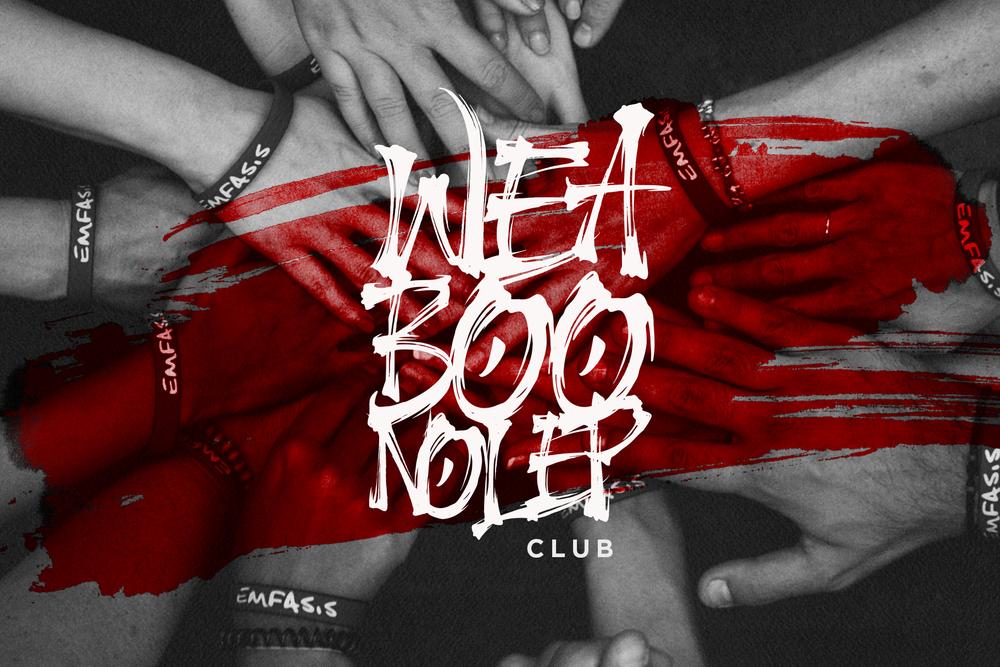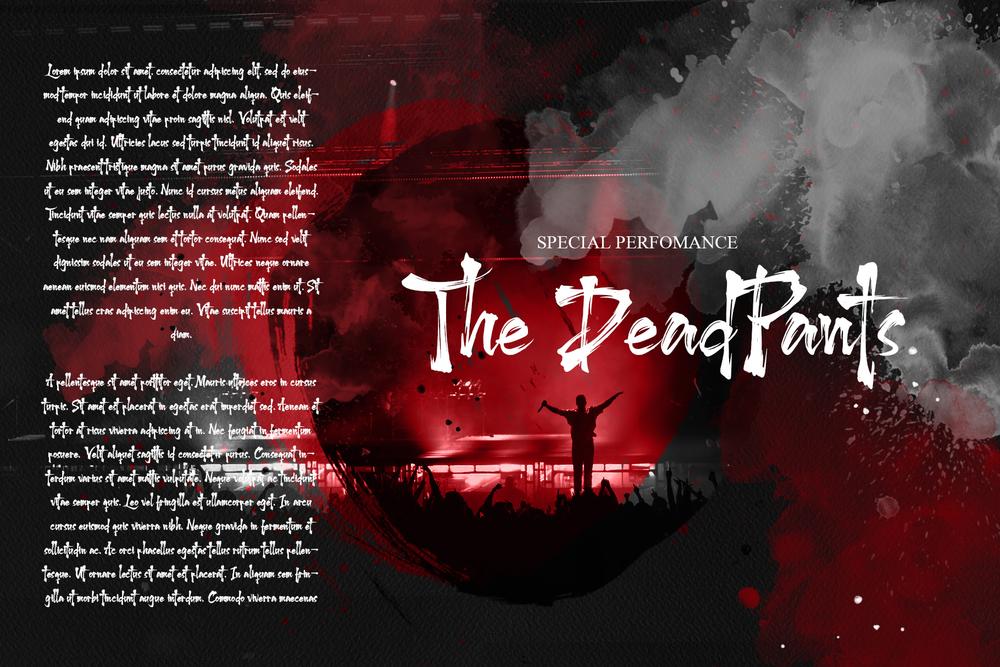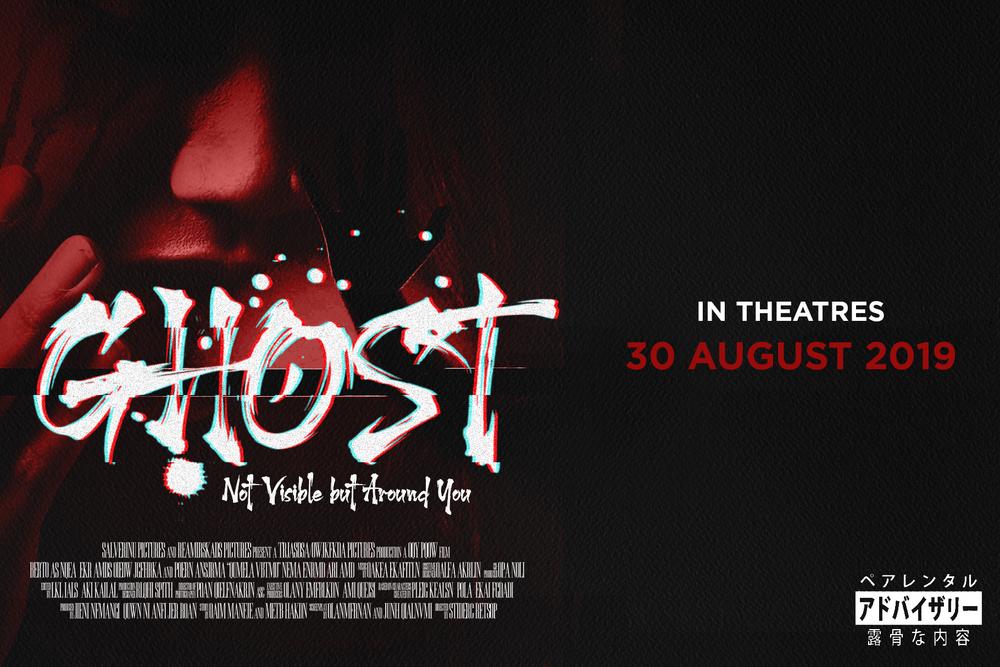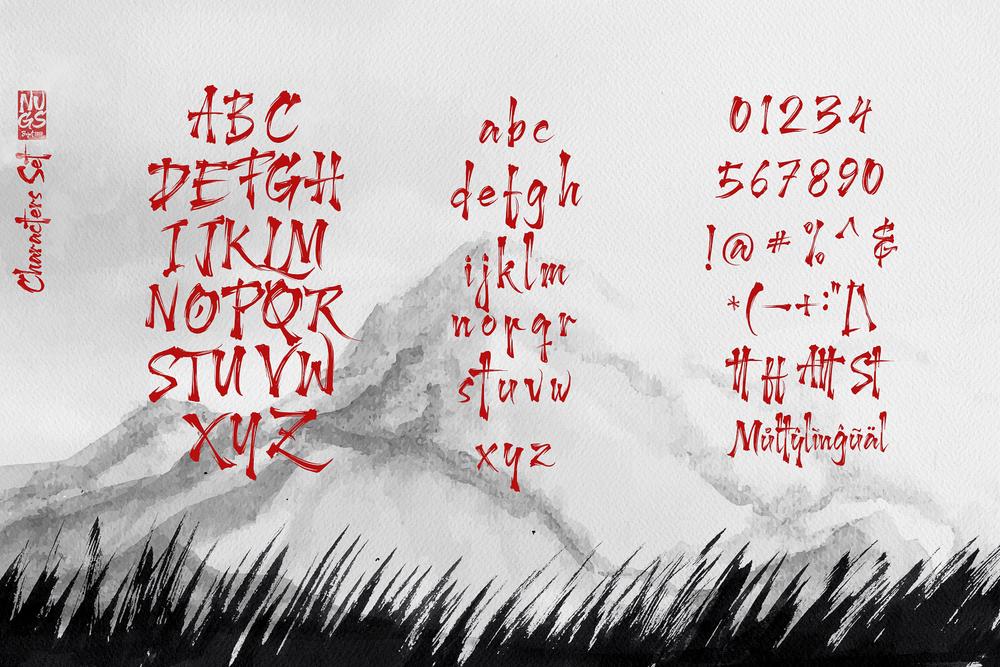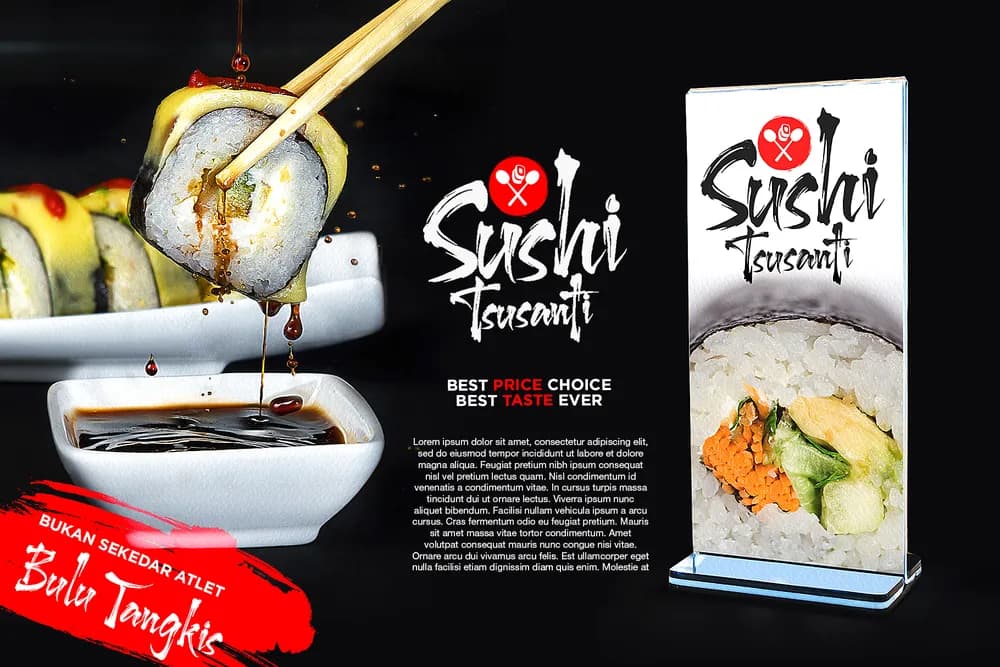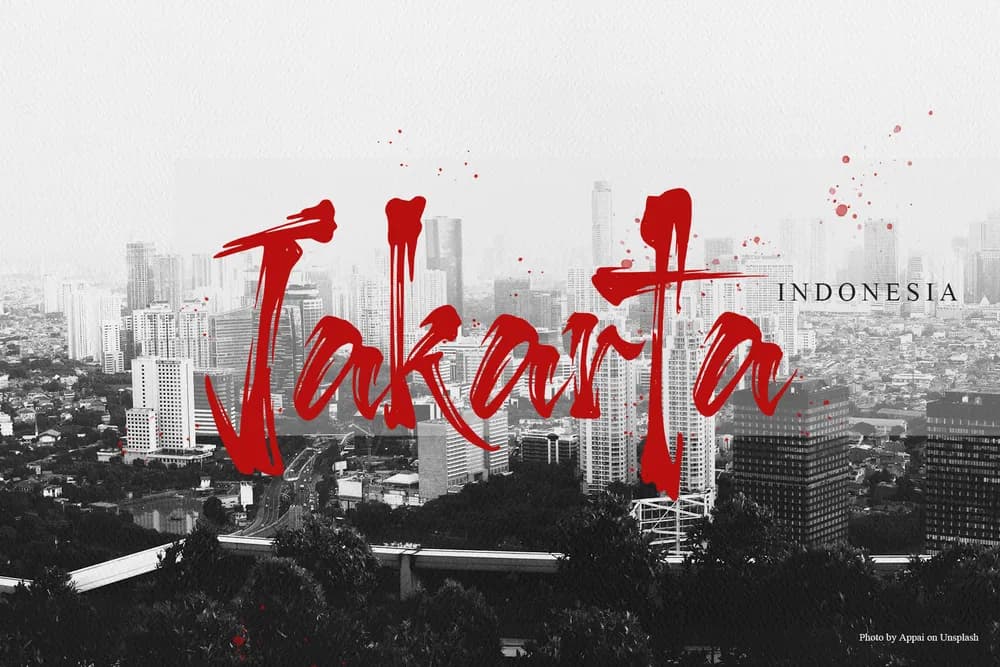
Inspired by traditional Japanese calligraphy, Harukaze is a brush display typeface with a bold and powerful feel. 𝐅𝐞𝐚𝐭𝐮𝐫𝐞𝐬 : ☛ Standard ligatures ☛ Alternates ☛ Uppercase & lowercase letters ☛ Numerals & punctuation ☛ Multilingual support 𝐅𝐨𝐫𝐦𝐚𝐭 : OTF, TTF, and WOFF.